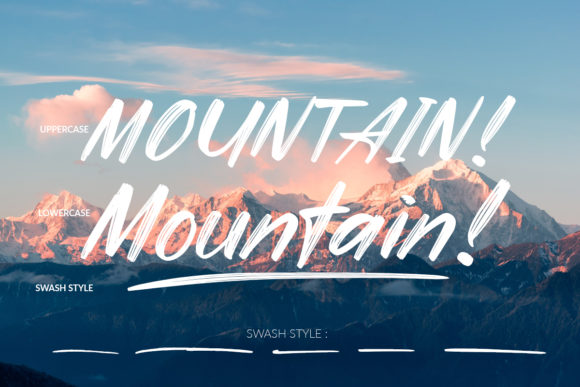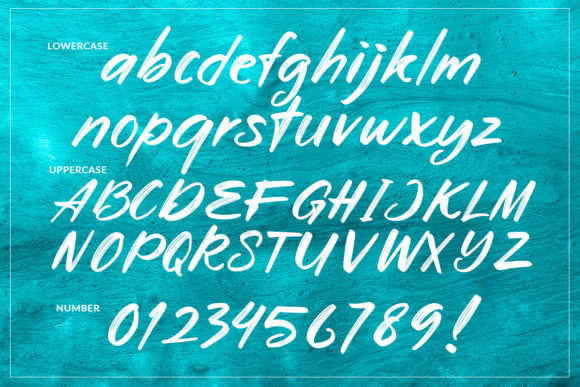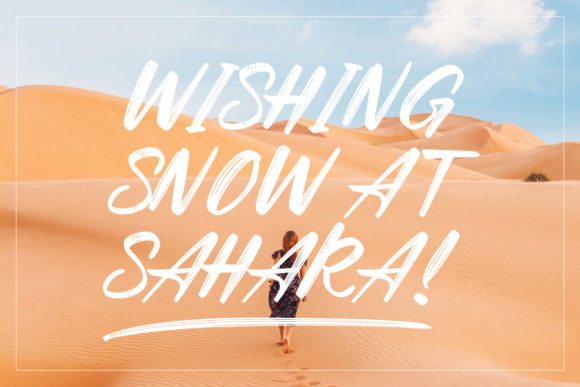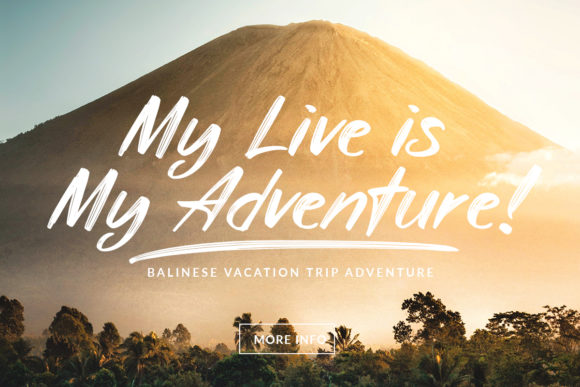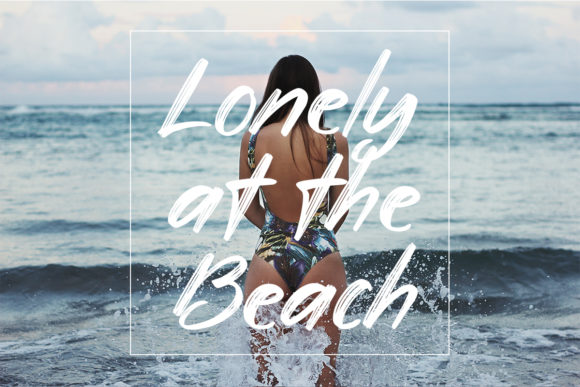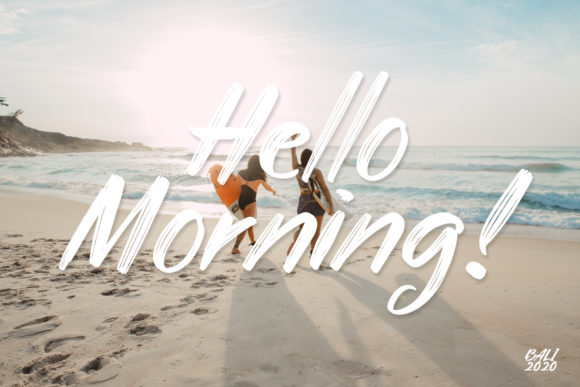
Aryzena Font: Elevate Your Designs with a Playful Handwritten Script
Are you tired of using the same old fonts in your designs? Do you want to add a touch of personality and style to your projects? Look no further than the Aryzena Font, a beautiful handwritten script textured brush font that is sure to make your designs more attractive and stylish.
What is Aryzena Font?
Aryzena is a unique and creative font that is perfect for designers and crafters who want to add a personal touch to their work. This handwritten script font is designed to look like it was written with a brush, giving it a textured and organic feel. The result is a font that is both playful and elegant, making it perfect for a wide range of design projects.
Features of Aryzena Font
Aryzena Font has a number of features that make it stand out from other fonts. Some of its key features include:
- Handwritten script style: Aryzena has a beautiful handwritten script style that gives it a personal and unique feel.
- Textured brush effect: The font has a textured brush effect that gives it a organic and natural look.
- Playful and elegant: Aryzena is both playful and elegant, making it perfect for a wide range of design projects.
- Perfect for logos, posters, and headlines: Aryzena is perfect for use in logos, posters, headlines, and other design projects where you want to make a statement.
Uses of Aryzena Font
Aryzena Font is a versatile font that can be used in a wide range of design projects. Some of the most popular uses for this font include:
- Logos: Aryzena is perfect for use in logos, particularly for businesses that want to convey a sense of personality and style.
- Posters: The font is also great for use in posters, where its bold and playful style can really make an impact.
- Headlines: Aryzena is perfect for use in headlines, where its elegant and sophisticated style can help to grab the attention of readers.
- Social media graphics: The font is also great for use in social media graphics, where its playful and stylish style can help to make your content stand out.
Benefits of Using Aryzena Font
There are many benefits to using Aryzena Font in your designs. Some of the most significant benefits include:
- Unique and creative: Aryzena is a unique and creative font that can help your designs to stand out from the crowd.
- Easy to read: Despite its playful style, Aryzena is easy to read, making it perfect for use in body text as well as headlines.
- Versatile: The font is versatile and can be used in a wide range of design projects, from logos and posters to social media graphics and more.
- High-quality: Aryzena is a high-quality font that is designed to look great on any device or platform.
Tips for Using Aryzena Font
Here are a few tips for using Aryzena Font in your designs:
- Use it sparingly: Aryzena is a bold and playful font, so it’s best to use it sparingly to avoid overwhelming your designs.
- Pair it with other fonts: The font pairs well with other fonts, so don’t be afraid to experiment with different combinations.
- Experiment with colors: Aryzena looks great in a wide range of colors, so don’t be afraid to experiment and find the perfect color for your design.
In conclusion, Aryzena Font is a beautiful and versatile font that is perfect for designers and crafters who want to add a touch of personality and style to their work. With its handwritten script style, textured brush effect, and playful and elegant feel, Aryzena is sure to make your designs more attractive and stylish. Whether you’re creating logos, posters, headlines, or social media graphics, Aryzena is a great choice. So why not give it a try and see the difference it can make in your designs?